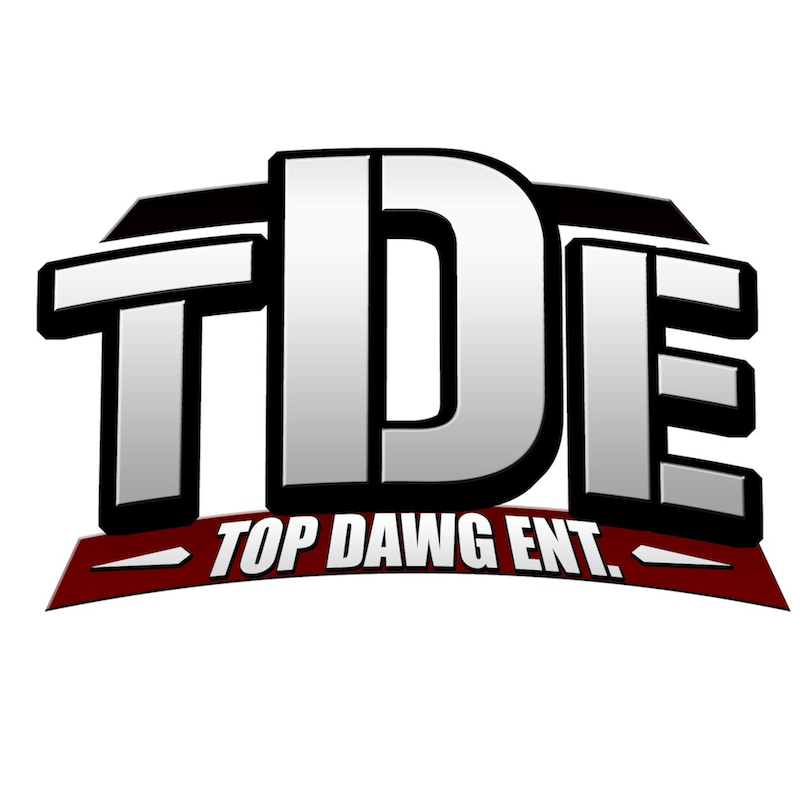
Top Dawg Entertainment Font
EntertainmentTop Dawg Entertainment (TDE) is an American independent record label founded in 2004 that is home to artists such as Kendrick Lamar, SZA, Schoolboy Q, and Ab-Soul.
It appears that the TDE logo uses Ray Larabie's stencil font Gunplay and the sans serif font beneath it is either Impact from Adobe or Ignite from CastCraft. Both Gunplay and Ignite are available for free download from the Fonts Used Section.